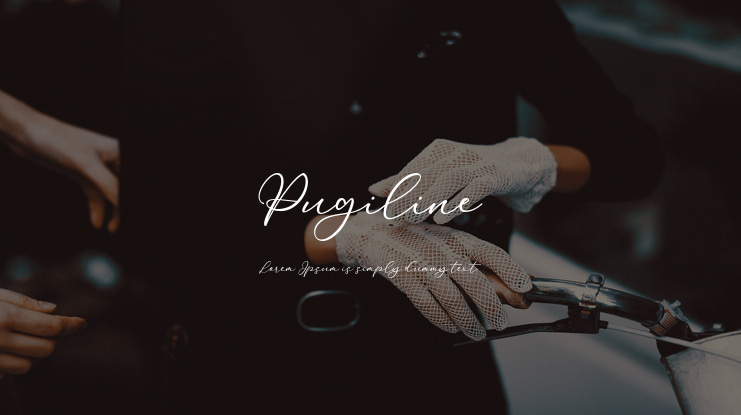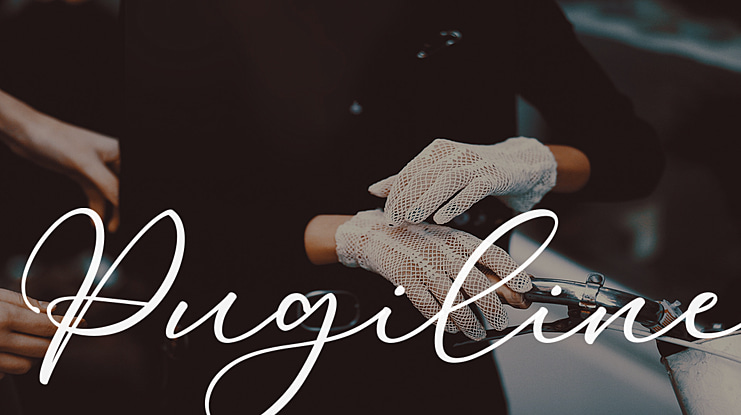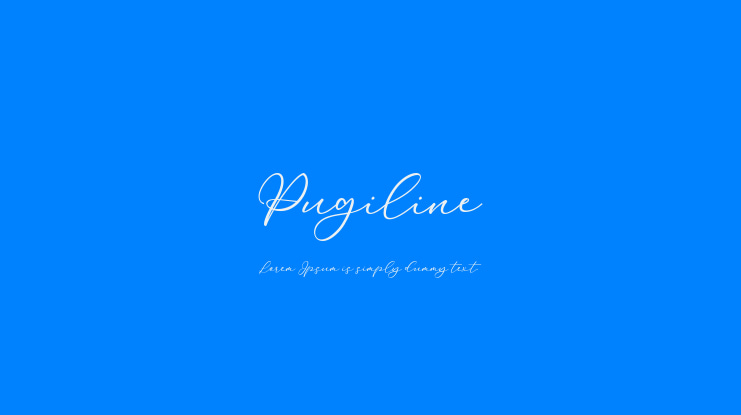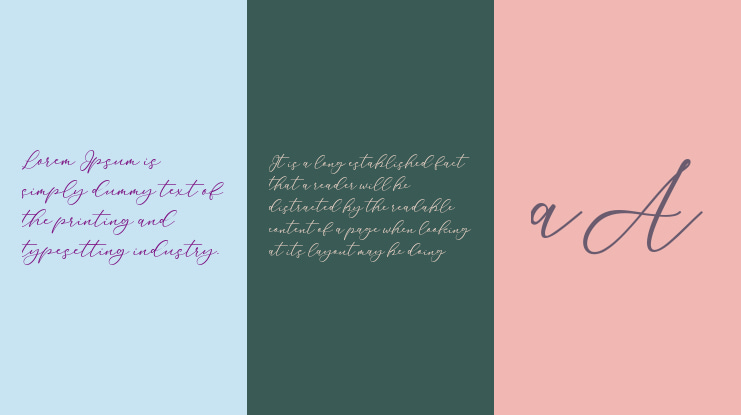
Pugiline Font
Pugiline Script Font is a dazzling script font. This font is neatly crafted and highly detailed. Whatever the topic, this font will be a wonderful asset to your font library, as it has the potential to enhance any creation. This font is PUA encoded which means you can access all glyphs and swashes with ease!